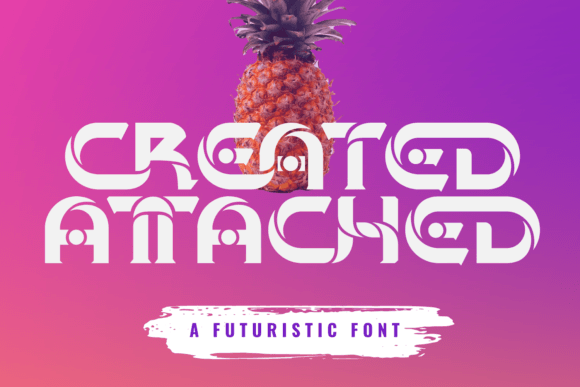
Adorn your designs with Created Attached, a futuristic font that exudes modernity and captivates the eyes. This display font, crafted by the skilled hands of 177Studio, is the ultimate choice for creating captivating displays that radiate with a cutting-edge vibe.
Embark on a cosmic voyage with Created Attached, the font that embodies the allure of space. Its smooth, sleek lines evoke the graceful trajectories of celestial bodies, while its sharp angles and geometric shapes hint at the enigmatic mysteries of far-off galaxies.
Created Attached's PUA encoding unlocks a universe of possibilities, granting you effortless access to a treasure trove of glyphs and ligatures. Unleash your creativity and let your imagination soar as you explore the boundless depths of this font's potential.
Immerse yourself in the allure of the unknown with Created Attached. Its interstellar charm will transport your designs to new dimensions, leaving your audience spellbound. Whether you're crafting logos, posters, social media graphics, or any other visual masterpiece, Created Attached will elevate your creations to celestial heights.